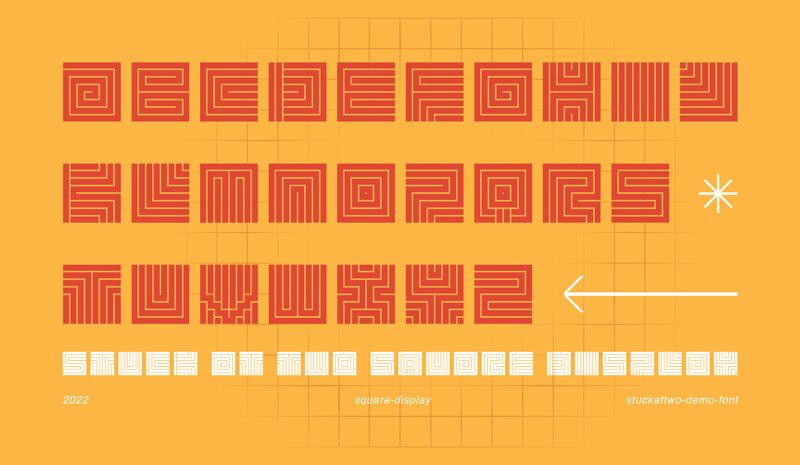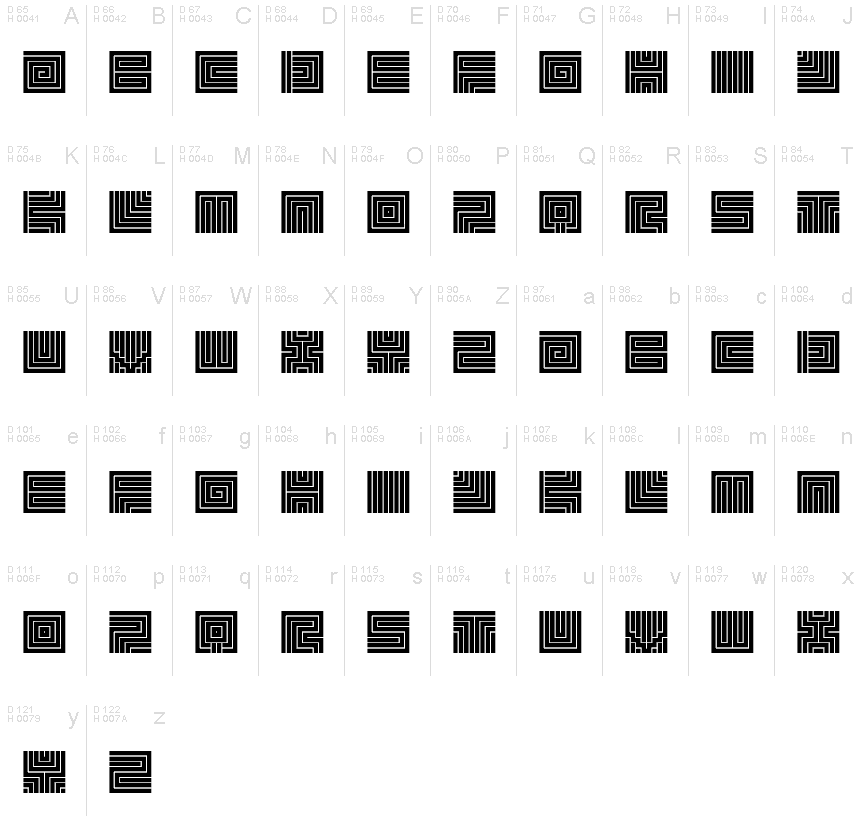
Stuckattwo is a bold display font that takes inspiration from techno and geometric designs to offer a unique set of characters.
It features a unique set of characters designed using sharp and smooth geometric lines. The characters are characterized by bold strokes with sharp corners and unique patterns for each letter (or numeral), which is where the techno inspiration for this font becomes apparent.
The font can be added to the list of geometric sans serif techno fonts which tend to be used in logo design and branding projects, headlines for articles related to games, music, and nightlife, and labels and titles for books and magazines.